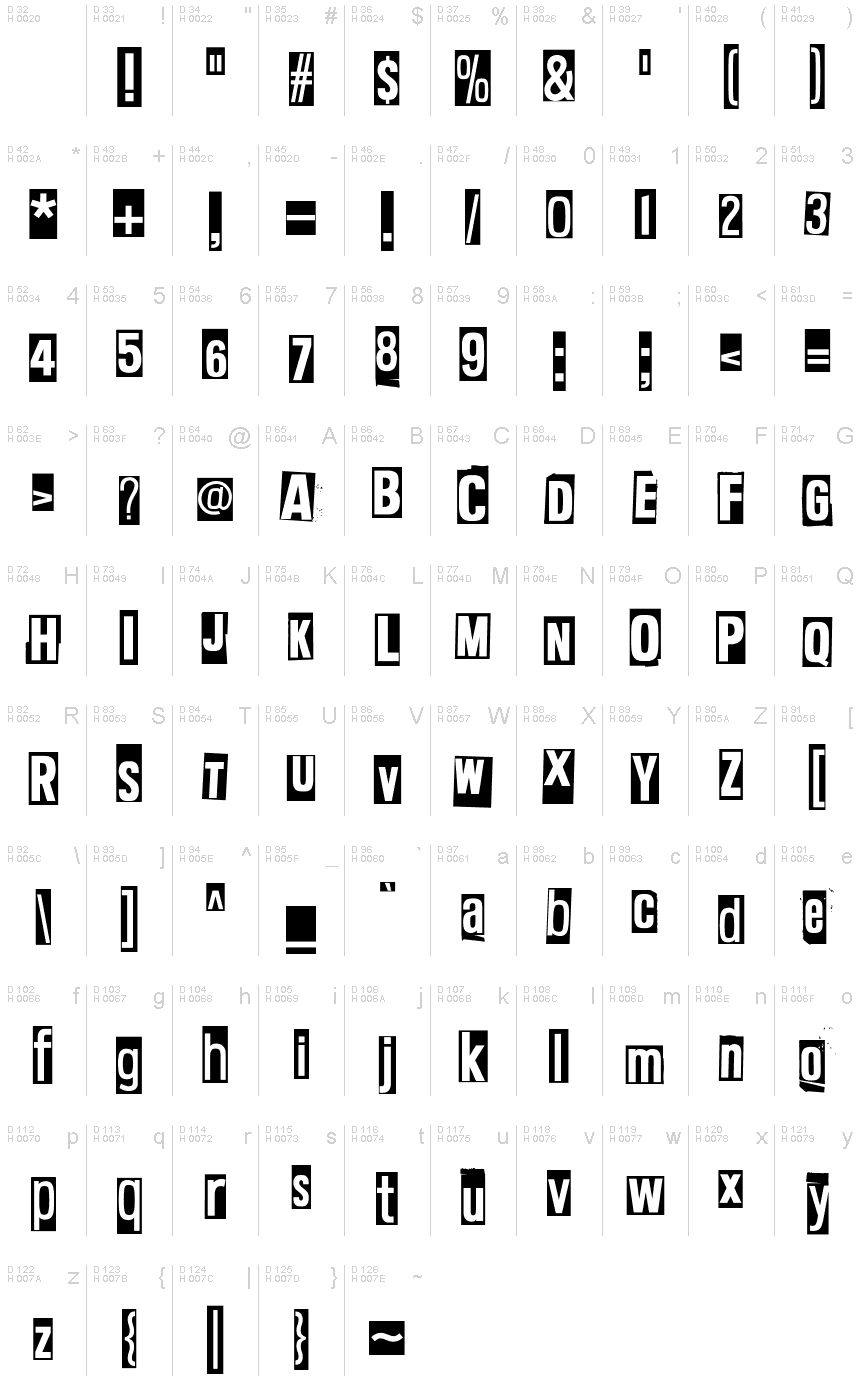
23 seconds to midnight
The 23 Seconds To Midnight font designed by junkohanhero is a display font with a distorted, narrow look and cleverly crafted negative space. It's perfect for creative projects needing an edgy, abstract feel like logo designs, album covers or poster art.